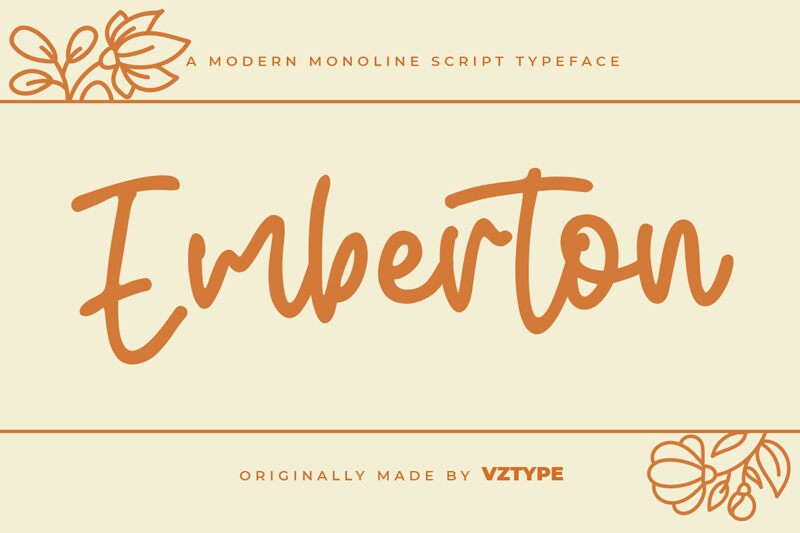
Emberton, the elegant and versatile semi-light handwritten font from Vztype Studio, is perfect for adding a personal touch to any project. Its flowing curves and gentle strokes lend a sophisticated air to invitations, greeting cards, and wedding stationery. Use Emberton's graceful script for branding materials such as logos and marketing collateral. The font's subtle weight makes it ideal for body text in books or magazines, while its clean lines ensure readability on screens or mobile devices. With Emberton, you can effortlessly achieve a timeless look that will never go out of style.